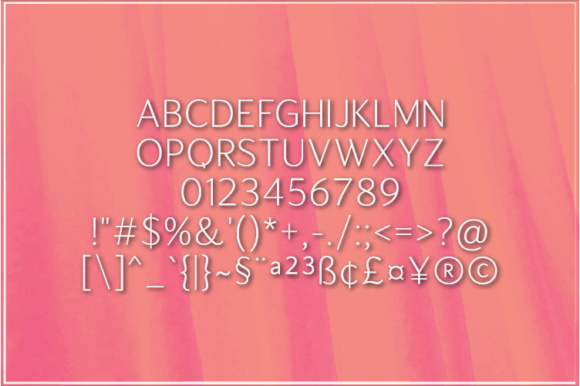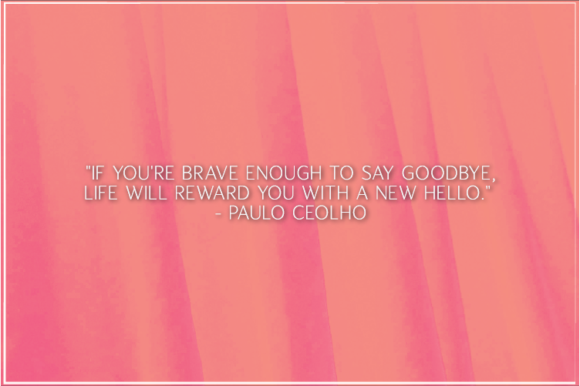
Introduction to Elvonetion Font
Elvonetion is a simple and cute sans serif font created to complement every project you’re working on.
It is perfect for displays, headers, invitations, save the dates, weddings, and so much more .
Key Features of Elvonetion Font
Why Choose Elvonetion Font?
Elvonetion Font offers exceptional quality and versatility, making it a valuable addition to your design toolkit. Whether you’re creating for personal projects or commercial use, Elvonetion Font delivers professional results.